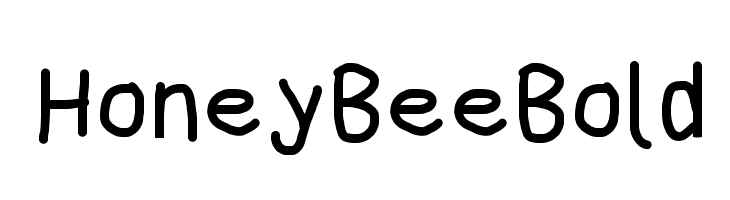
A playful, bold font with rounded, hand-drawn letterforms.
A playful, handwritten font with smooth, rounded strokes and a casual style.
A playful, handwritten font with consistent strokes and a casual vibe.
A playful, handwritten font with a casual and friendly appearance.